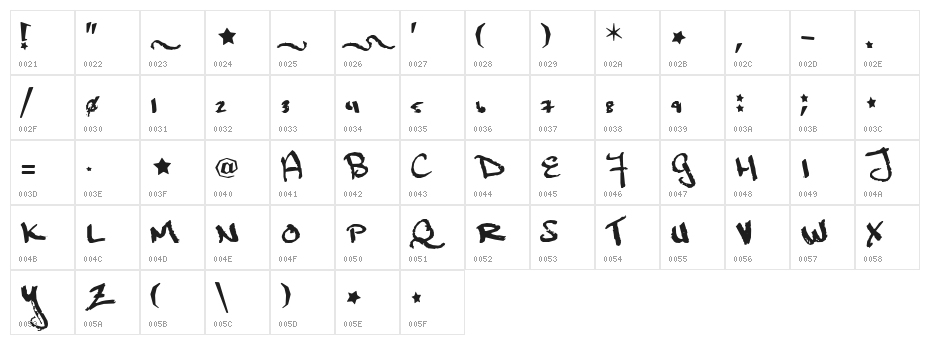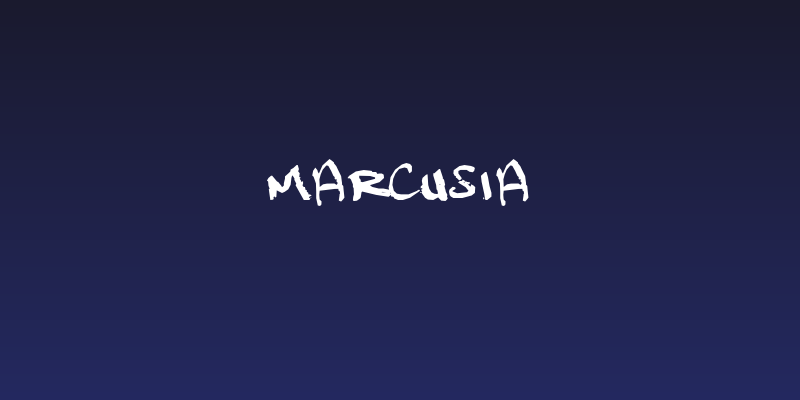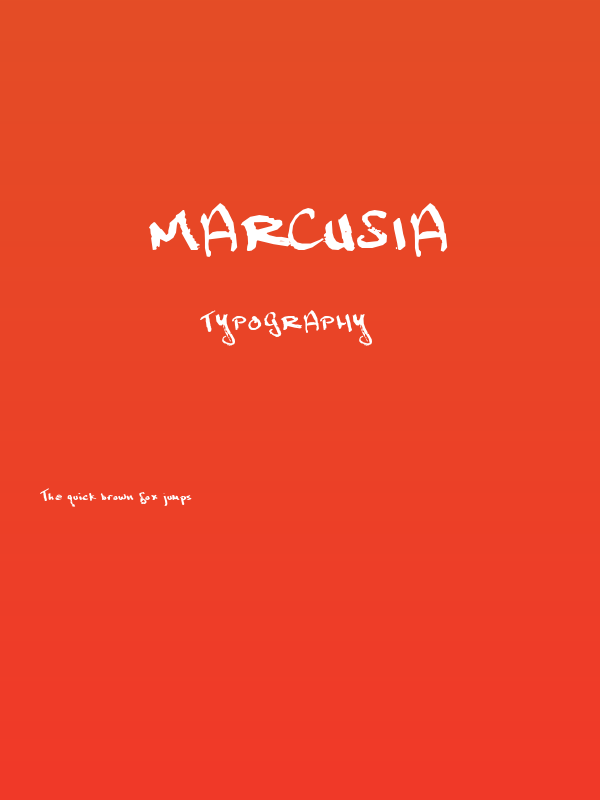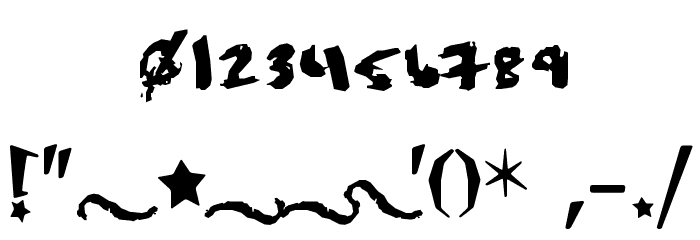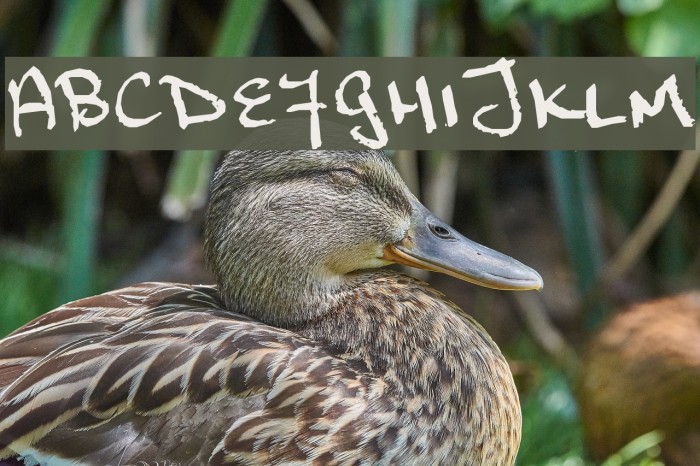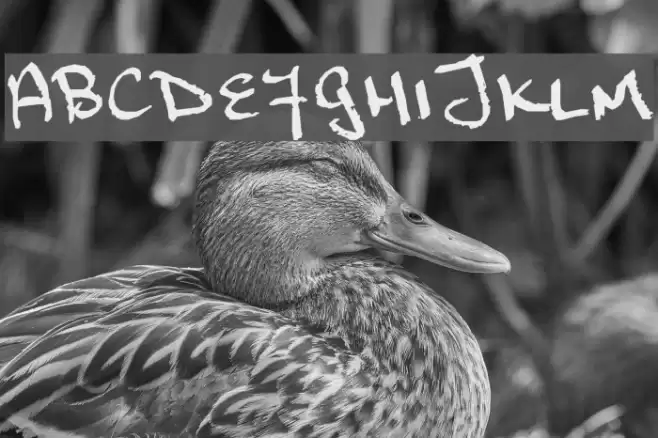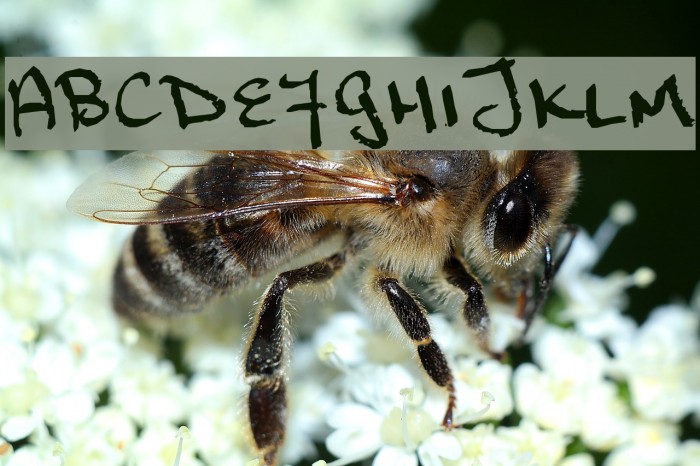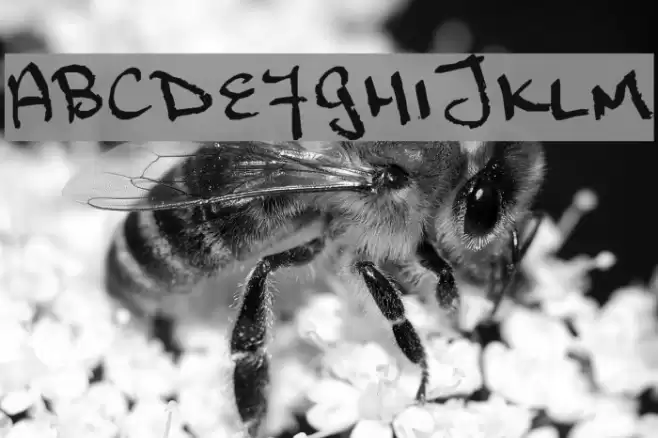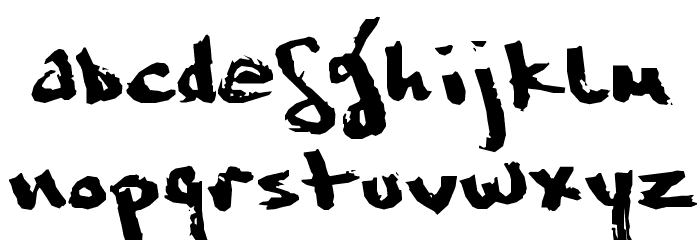
Marcusia Font
Marcusia Description
This font exhibits a bold and expressive style, characterized by its rough, hand-drawn appearance. The strokes are uneven, with a dynamic and energetic feel, suggesting a sense of spontaneity and creativity. The uppercase and lowercase letters are distinct, with some letters featuring exaggerated curves and angles. The numbers and special characters maintain the same rugged aesthetic, adding to the font's overall cohesive look. This font is ideal for projects that require a touch of artistic flair and individuality.
| Use Case | Logos, Headlines, Posters |
| Proposed Projects | Ideal for artistic projects, posters, album covers, and branding that seeks a unique, creative touch. |